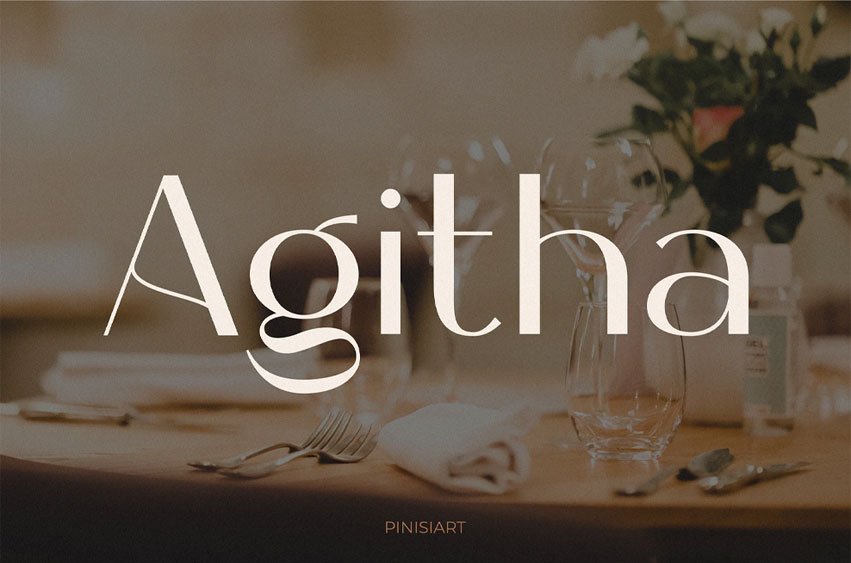
Agitha Font is an elegant display typeface with refined contrast and graceful letter harmony, designed for brands that want to communicate sophistication and modern refinement. Its clean proportions and soft curves give it a timeless charm, while its delicate yet confident rhythm makes it perfect for editorial layouts, restaurant menus, and lifestyle branding.
With its modern elegance and versatile adaptability, Agitha seamlessly fits into branding, packaging, social media posts, editorial layouts, restaurant menus, and event invitations. It’s not just about letters—it’s about creating a luxury impression that resonates with audiences and leaves a lasting memory. Designers seeking a professional yet approachable tone will find Agitha ideal for both digital and print projects.
Key Features :
- Elegant rhythm: balanced flow for refined readability
- Modern structure: clean proportions with a timeless edge
- Versatile use: works for branding, menus, posters, and more
- Emotional impact: conveys sophistication, trust, and style